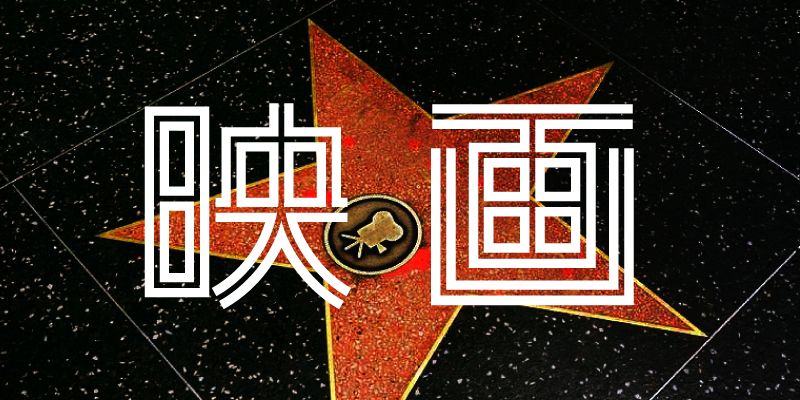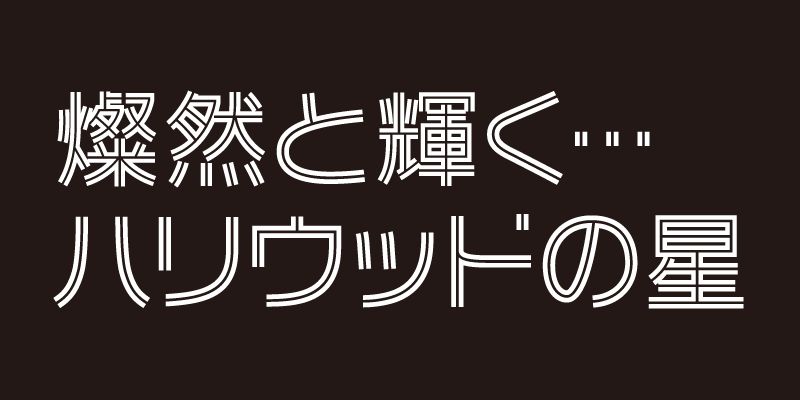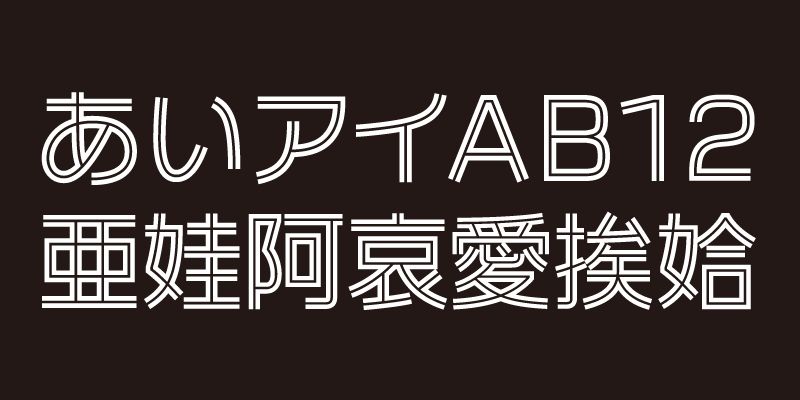
VDL Logona Twin is a new kind of typeface based on the design of VDL Logona.
It features a twin structure with a line running through the center of the glyphs and intentionally omits complex elements to ensure balance and readability.
Even characters with many strokes remain free of undesired filled spaces between strokes, presenting a refined and sophisticated urban gothic style.
As a display font, it includes 9,354 glyphs based on the Adobe-Japan 1-3 Character Collection.
The ethos of Visual Design Laboratory (VDL) is to balance the natural beauty of letterforms with rigorous standards for readability and legibility. VDL offers a comprehensive collection known as “VDL Designers Fonts” (VDLデザイナーズフォント), which is sure to resonate with designers seeking a typeface that’s highly individual while maintaining a broad appeal.